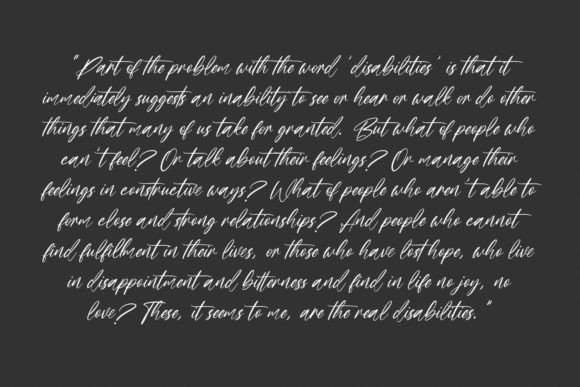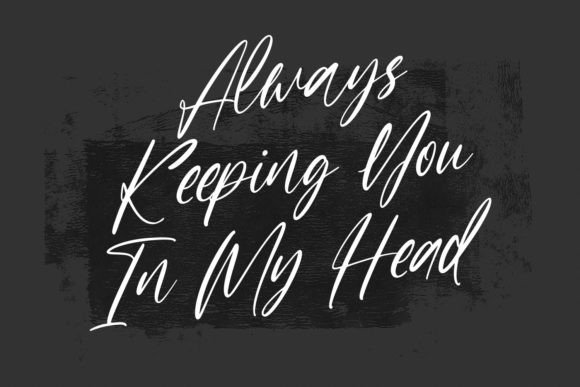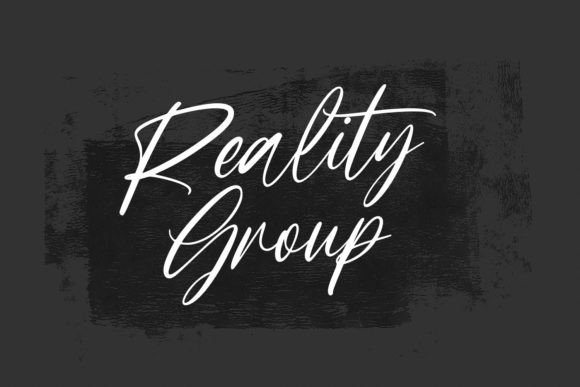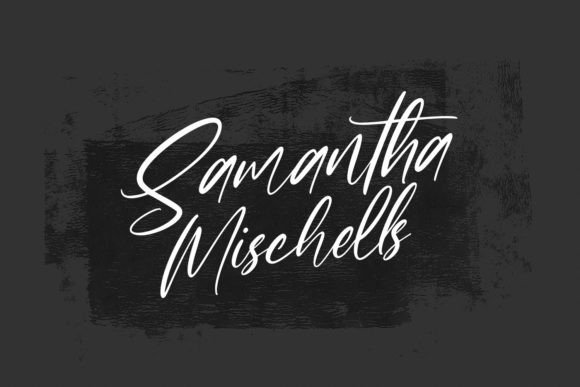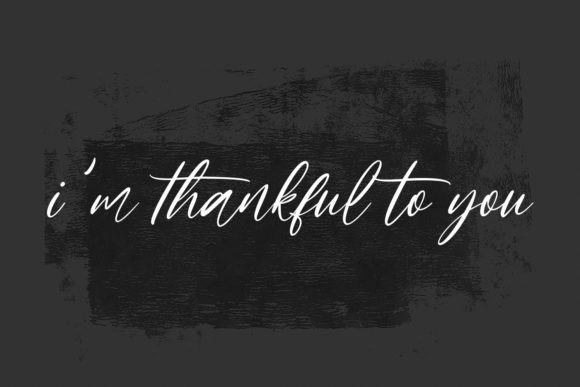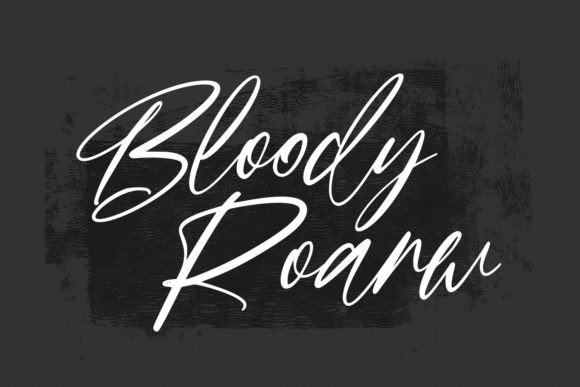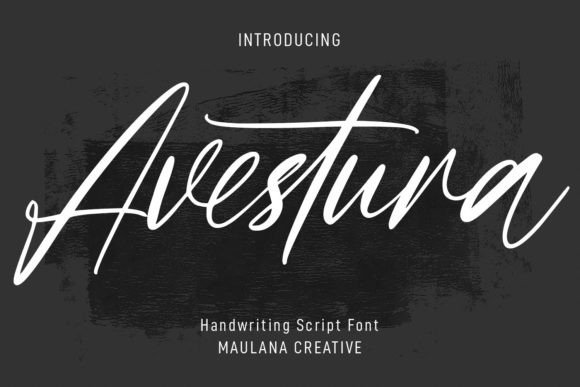
The Avestura Font: A Designer’s Dream Come True
I’ll never forget the moment I stumbled upon the Avestura font while working on a project for a high-end client. I had been searching for the perfect font for hours, trying out different styles and combinations, but nothing seemed quite right. That was until I saw Avestura – its elegant, handwritten curves and contemporary feel immediately caught my attention. I knew right then and there that I had found the one.
So, what makes Avestura so special? Here are a few things that I absolutely love about this font:
• ✨ Exquisite handwritten style: Avestura’s calligraphic influences are masterfully balanced with a modern, fresh feel.
• ✅ Versatility: This font is perfect for a wide range of projects, from branding and advertising to packaging and digital media.
• 💫 Attention to detail: The font’s creator has clearly put a lot of thought into the little details, from the subtle variations in line width to the elegant swashes.
Of course, no font is perfect, and Avestura does have a few small quirks:
• 🤔 Limited multilingual support: While Avestura does support some non-English characters, it’s not a fully multilingual font.
• ⚠️ Occasional kerning issues: As with any font, you may need to adjust the kerning manually to get the best results.
Exploring Avestura’s OpenType Features
One of the things that sets Avestura apart from other fonts is its robust OpenType feature set. Here are a few of the features you can expect:
• Stylistic alternates: Avestura offers a range of stylistic alternates, allowing you to customize the font to suit your design needs.
• Glyphs: The font includes a range of glyphs, from standard characters to more specialized symbols and ornaments.
• Swashes: Avestura’s swashes add a touch of elegance and sophistication to your design.
The Story Behind Avestura
So, where did Avestura come from? According to its creator, Avestura was inspired by a passion for calligraphy and a desire to create a font that would be both elegant and modern. The result is a font that’s perfect for designers, crafters, and creative hobbyists who want to add a touch of class to their projects.
Here are a few frequently asked questions about Avestura:
Q: What type of projects is Avestura best suited for?
A: Avestura is perfect for a wide range of projects, from branding and advertising to packaging and digital media.
Q: Does Avestura support non-English characters?
A: While Avestura does support some non-English characters, it’s not a fully multilingual font.